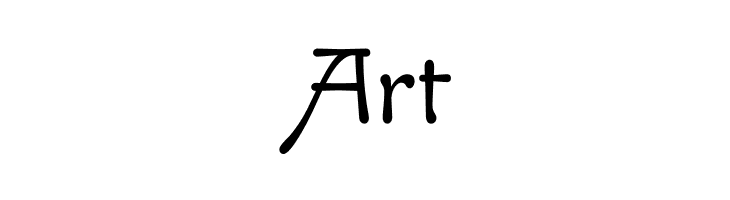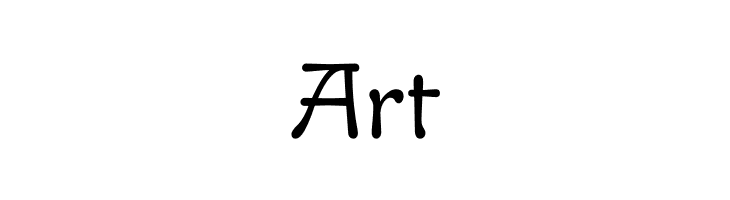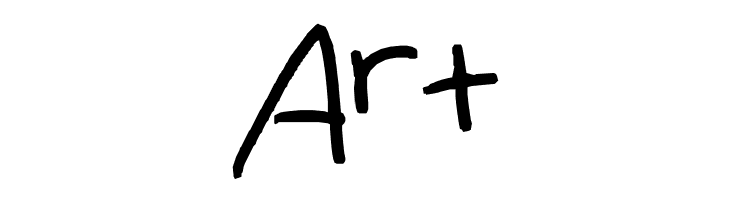
( Edwing Rivera )
A quirky, hand-drawn font with irregular strokes and playful forms.
( Fonts by John Vargas Beltrán )
A playful, hand-drawn font with whimsical and organic strokes.
A playful and whimsical font with rounded, flowing letterforms.
( Fonts by John Vargas Beltrán )
A whimsical and playful font with swash caps and decorative elements.
A whimsical and decorative font with swash elements and artistic flair.